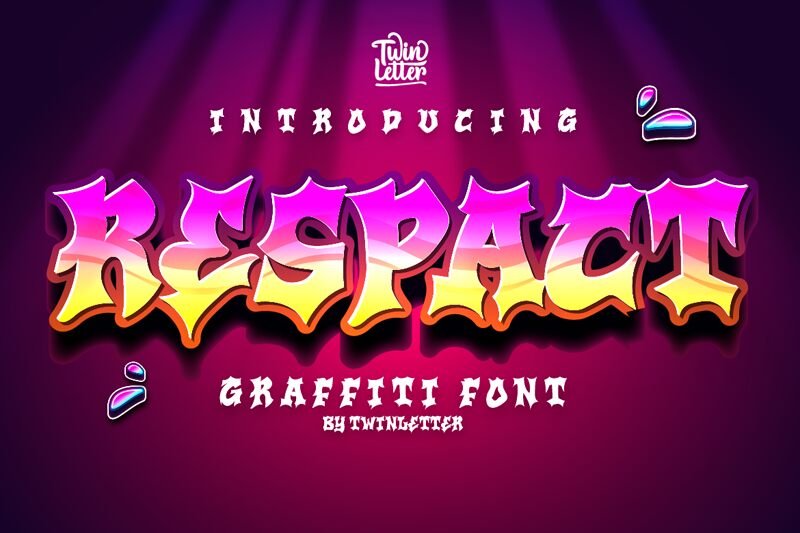
Respact font, designed by Twinletter, embodies the dynamic spirit of graffiti art with its bold aesthetic. Its striking presence is accentuated by uniquely stylized letterforms that resonate with an urban vibe. The expansive design draws the eye in, while the playful curves and sharp angles express creativity and individuality.
This font stands out in vibrant posters, streetwear branding, and any graphic that aims to make a statement. Its commanding weight ensures visibility even from a distance, making it perfect for attention-grabbing headlines or event promotions. Ideal for modern youth culture applications or projects seeking to celebrate artistic expression, Respact effortlessly fuses style and personality into every design.